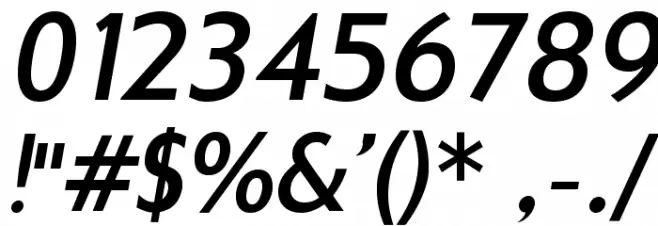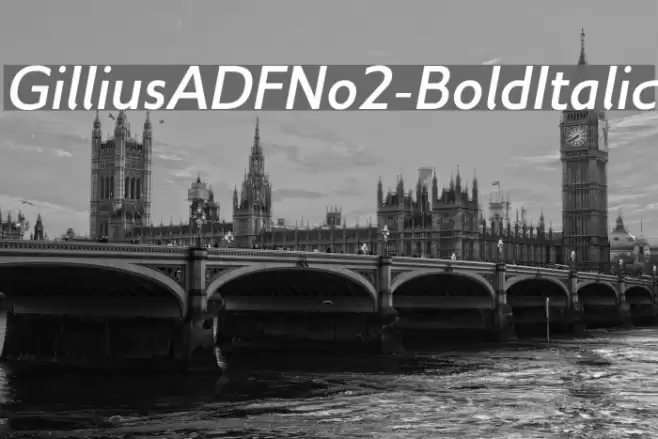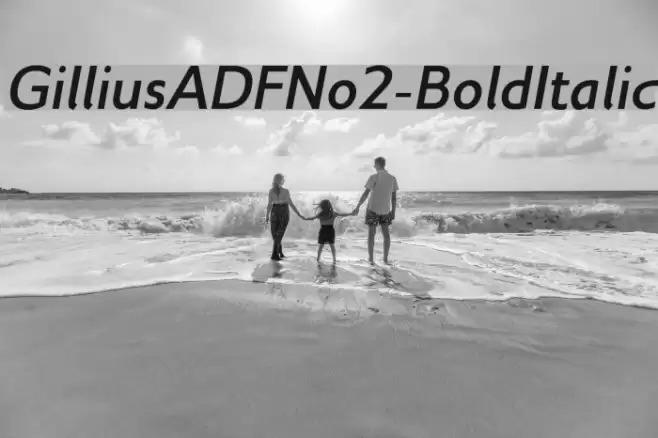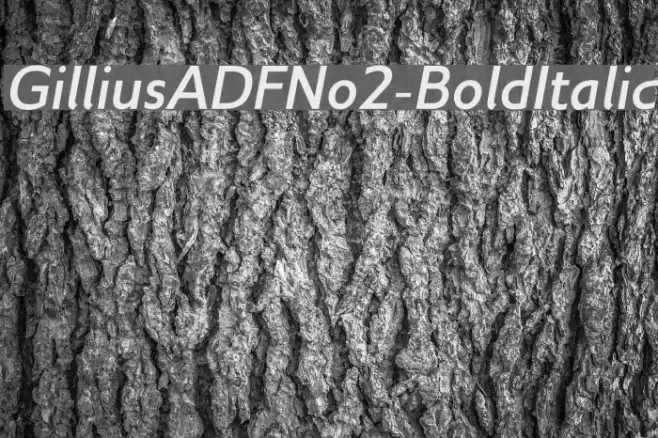
GilliusADFNo2-BoldItalic Font
GilliusADFNo2-BoldItalic Description
This font features a bold and italicized style, characterized by clean and modern lines. The uppercase letters are slightly slanted, giving a dynamic and forward-moving appearance. The lowercase letters maintain a consistent slant, enhancing readability while adding a touch of elegance. The numerals are clear and distinct, with a uniform thickness that complements the overall boldness of the font. Special characters are well-defined, maintaining the font's cohesive look. The design is versatile, suitable for various applications where a modern and assertive typeface is needed.
A bold, italicized font with clean lines and a modern, dynamic style from Uncategorized fonts.
- Proposed Projects: Ideal for branding, advertising, headlines, and digital media where a strong and modern presence is desired.
- Use Case: Headlines, Logos, Branding